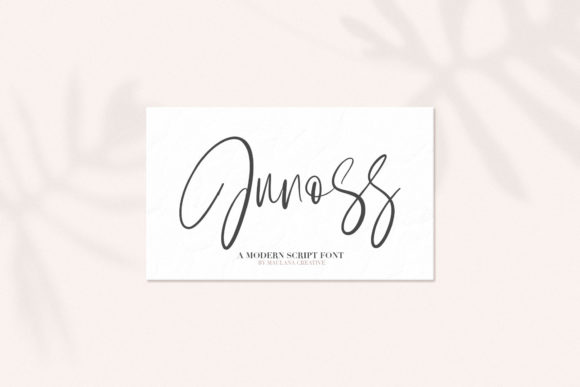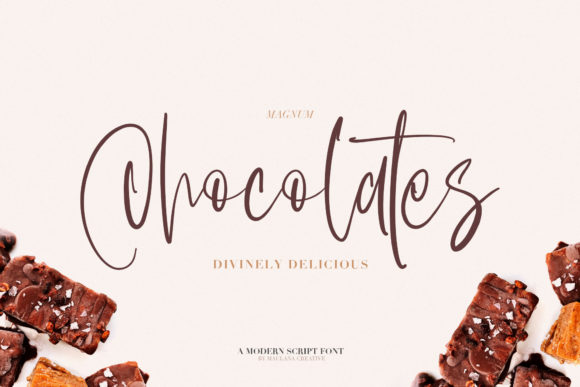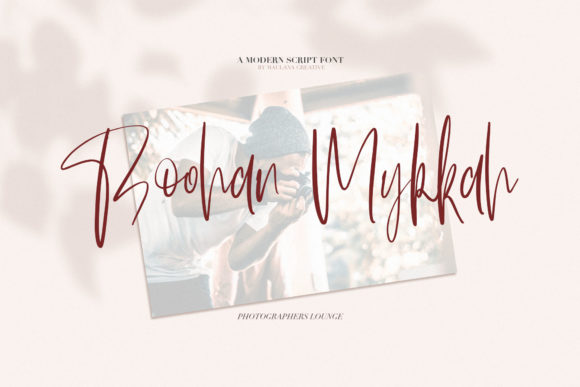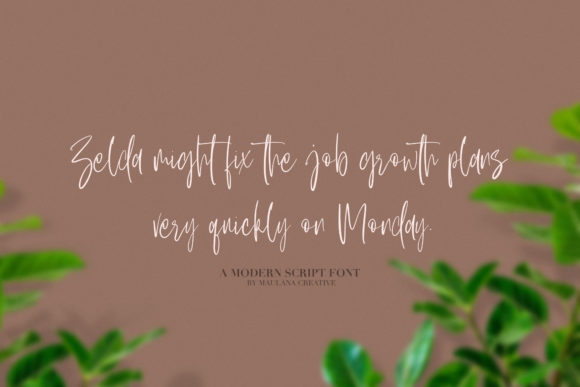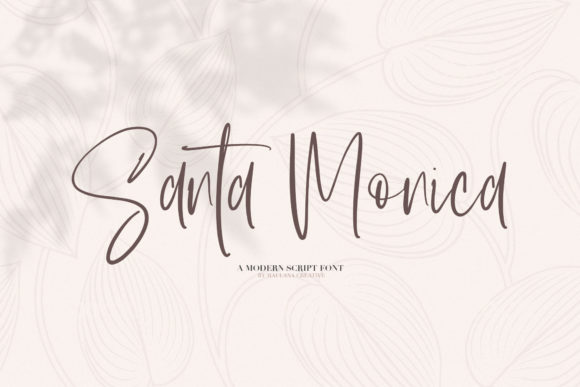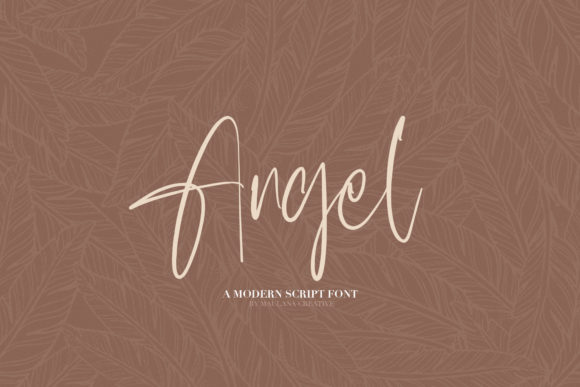
Introduction to Junos Ridge Font
Junos Ridge is a stunning script font that’s bold contemporary and nostalgic.
It will give your designs an undeniably authentic look .
Key Features of Junos Ridge Font
Why Choose Junos Ridge Font?